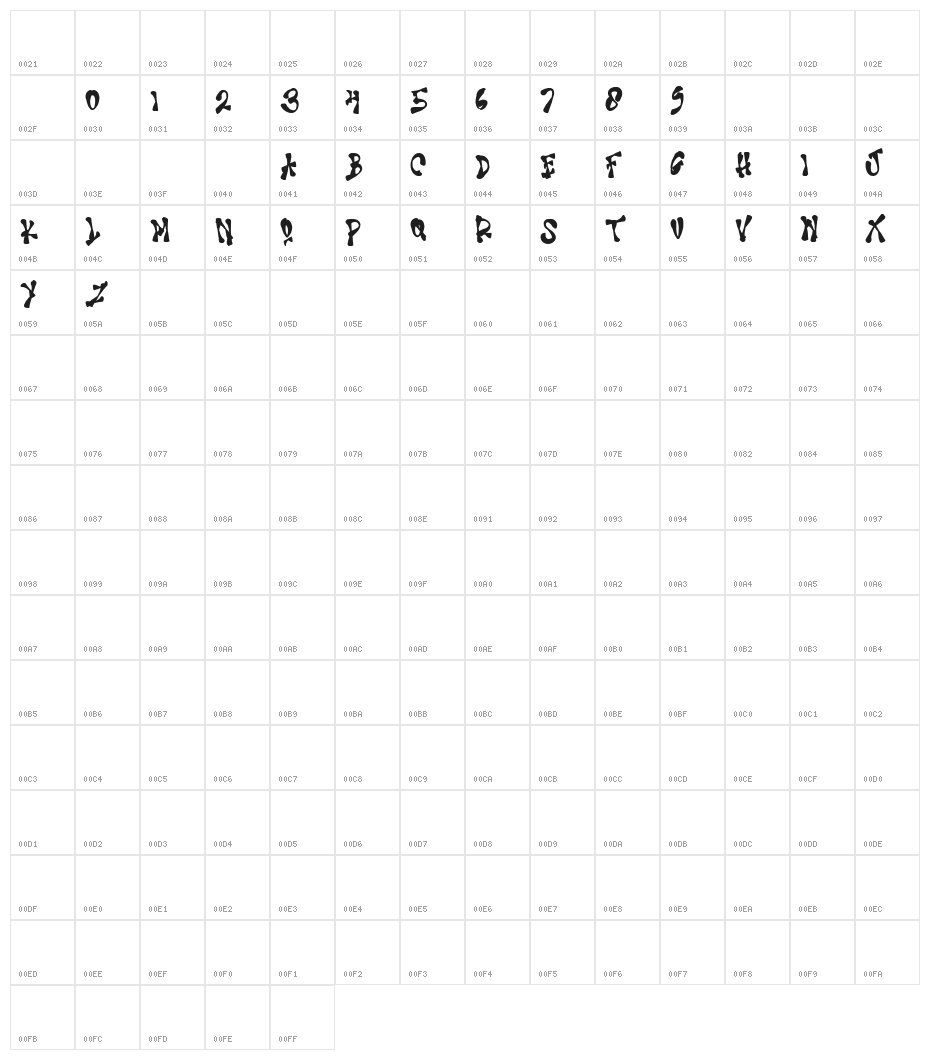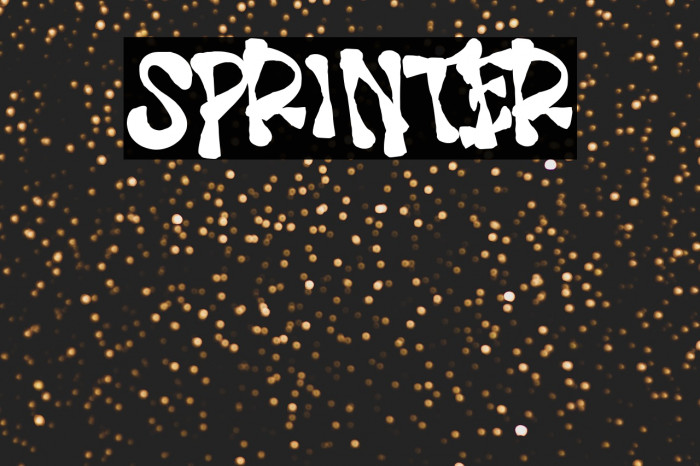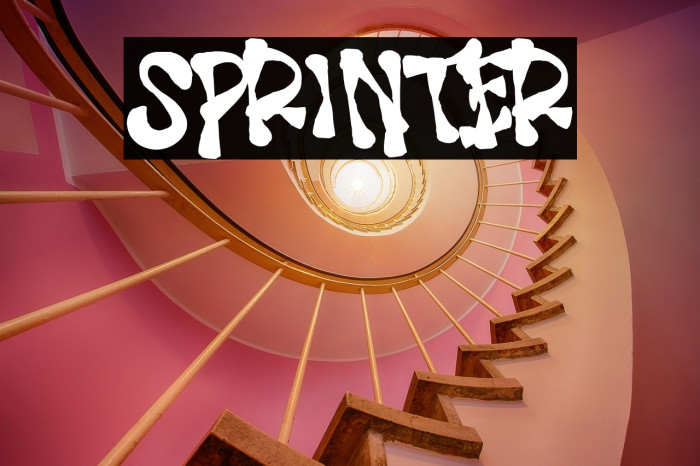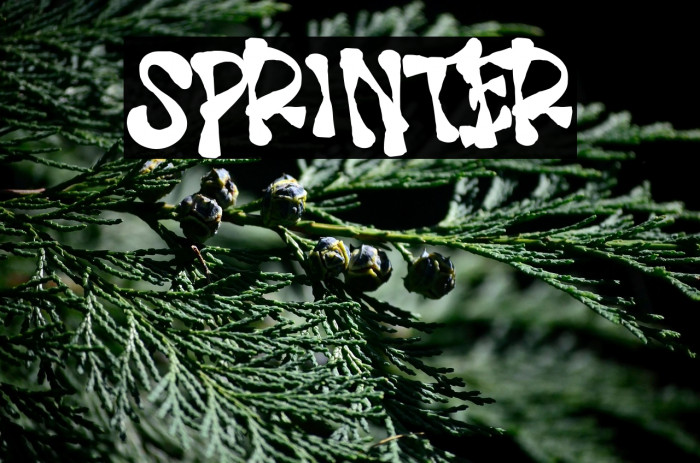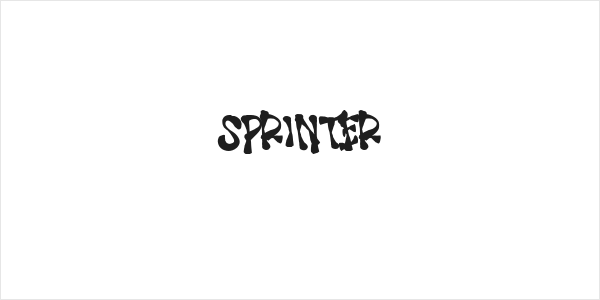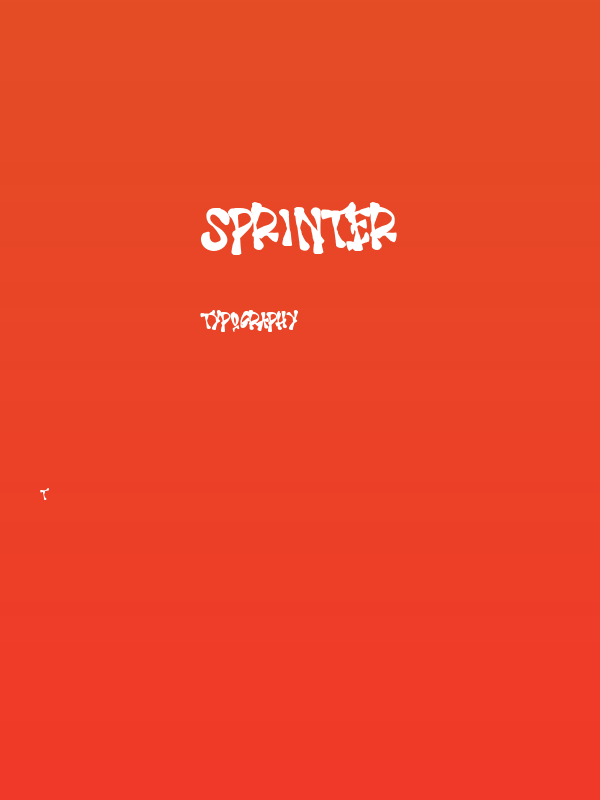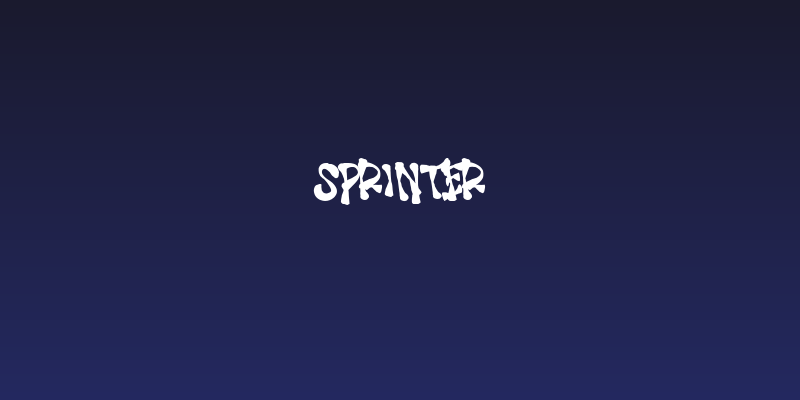
SPRINTER Font
SPRINTER Description
This font exhibits a bold and dynamic style, characterized by its thick, uneven strokes and a graffiti-like appearance. The letters are highly stylized, with exaggerated curves and angles that give them a sense of movement and energy. The uppercase letters are particularly striking, with a strong presence that commands attention. The numbers follow a similar design, maintaining the bold and playful aesthetic. This font is ideal for projects that require a sense of urban flair or artistic expression, making it suitable for posters, album covers, or streetwear branding.
| Overall Style | Urban, Artistic, Graffiti |
| Proposed Projects | Ideal for street art designs, music album covers, urban-themed posters, and edgy branding projects. |